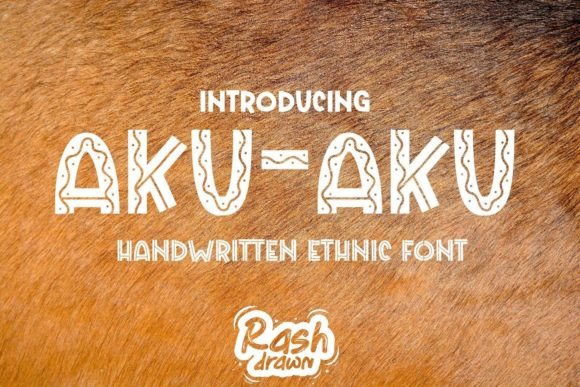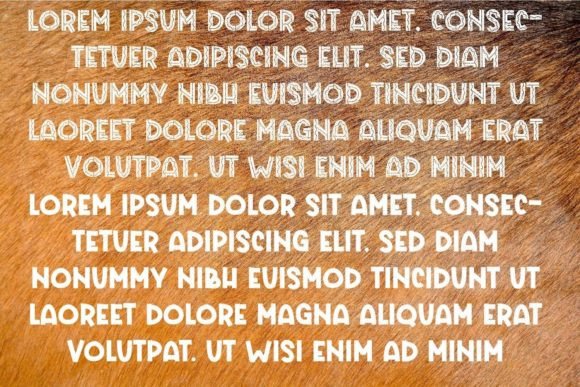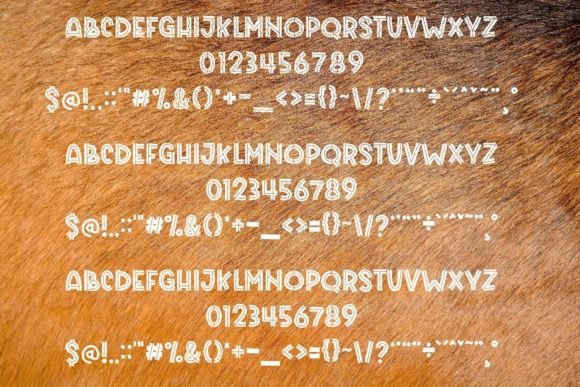
Aku-Aku Font: Unique Tribal Decorative Font for DIY & Creative Projects
About the Aku-aku Font
Let us introduce you to Aku-aku Font, where timeless design meets modern craftsmanship. Aku-Aku is an ethnic decorative font inspired by traditional tribal elements. Its unique and interesting style makes it perfect for a wide pool of creative ideas. Add it confidently to your projects, and you will love the results.
Aku-Aku’s bold, graphic forms excel in headlines, short text blocks on posters, and branding applications where a strong visual impact is desired. It’s ideal for projects conveying themes of adventure, heritage, or cultural identity. However, its decorative nature makes it unsuitable for body text or UI elements requiring high readability.
Pairing Aku-Aku effectively depends on the desired balance. For a modern feel, consider a clean sans-serif like Open Sans or a geometric sans-serif like Futura. To emphasize its ethnic inspiration, a classic serif like Garamond or a more contemporary serif like Playfair Display could work well.
The font’s core personality is energetic and expressive, yet maintains a grounded, tribal feel, making it suitable for brands aiming for a bold yet authentic image.
Aku-aku Font Usage Examples
Aku-aku Font Example